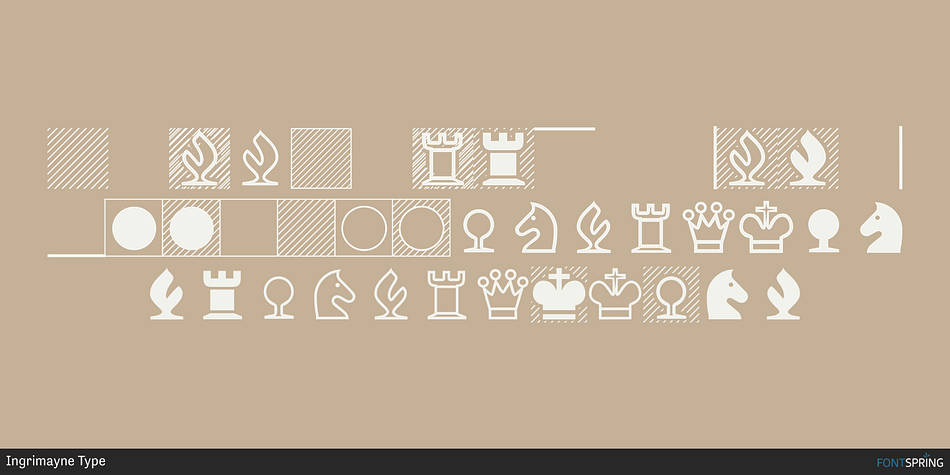
XChessNut Two Regular
Designed by Robert Schenk, XChessNut is a dingbat font family. This typeface has two styles and was published by Ingrimayne Type.
XChessNut contains two chess fonts that resemble actual chess pieces. The key layout is a bit complicated; see the key guide for detailed information on how to position pieces correctly.